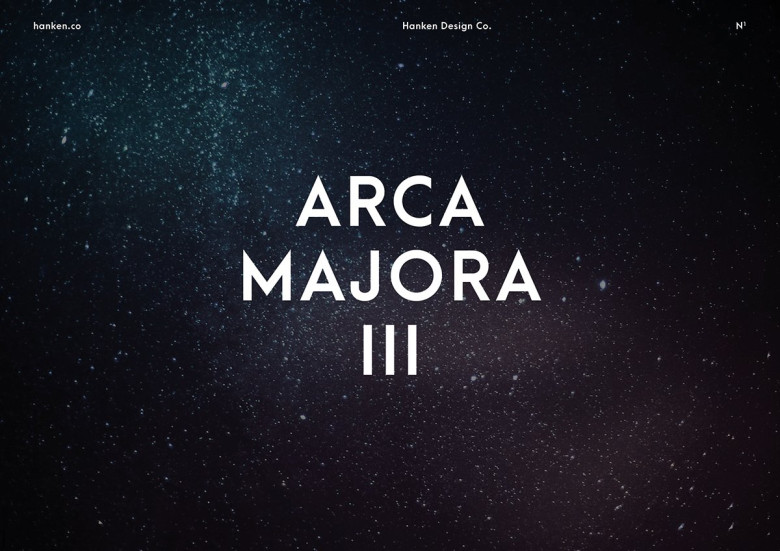
Arca Majora 3 Typeface
Arca Majora III is a new Sans Serif font. Designed and shared by Alfredo Marco Pradil, a professional designer, came from Dubai, United Arab Emirates. Arca Majora 3 is derived from Arca Majora, an all-uppercase geometric sans-serif that is great for headlines, logotypes and posters. Sharp tips and bold stems—Arca Majora is perfect for high-impact communication. Arca Majora 3 includes lowercase characters making it a highly usable font.